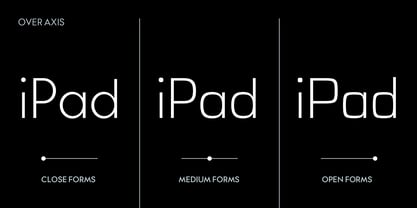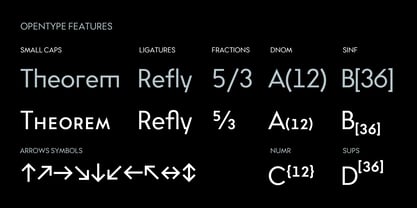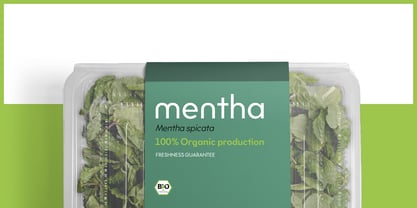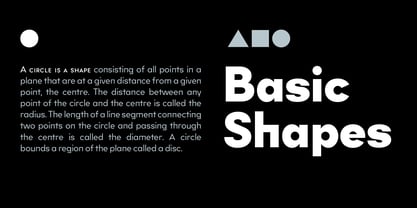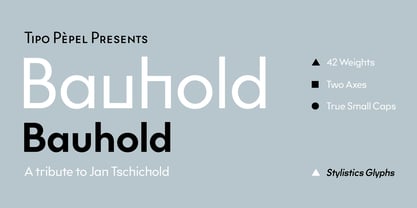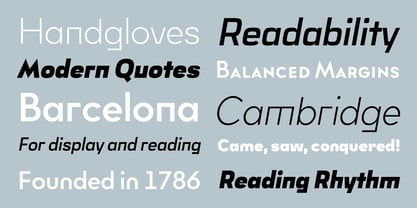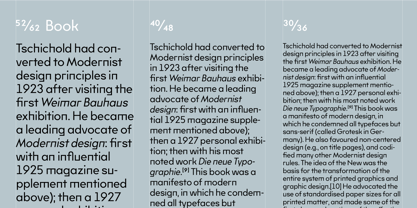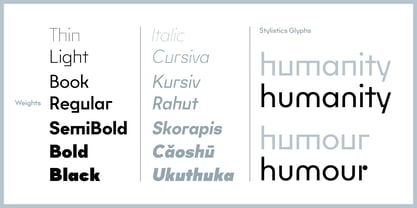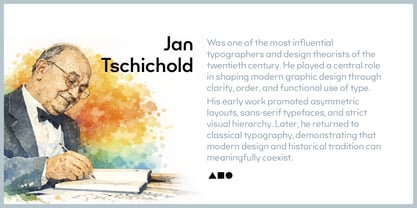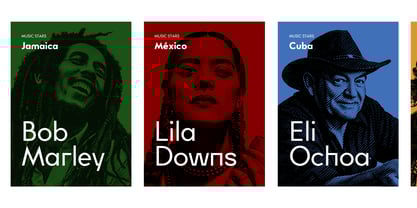
Bauhold
by Tipo Pèpel
The Bauhold Font Family was designed by Josep Patau Bellart and published by Tipo Pèpel. Bauhold contains 44 styles and family package options. More about this family
Bauhold is a contemporary sans-serif typeface that merges Bauhaus and Jan Tschichold, explicitly acknowledging the modernist legacy of experimentation, reduction, and functional clarity. It serves as a tribute to the early twentieth-century quest for a universal visual language, echoing Tschichold’s investigations into structure, proportion, and the concept of a universal alphabet adapted to modern life. The design of Bauhold is grounded in clear geometric principles. Circular forms, straight strokes, and disciplined proportions establish a rational framework that recalls Bauhaus typography and early modernist systems. Simultaneously, Bauhold avoids rigidity through carefully considered deviations. Characters such as n, m, h, u, and g subtly depart from strict geometric construction, introducing a human rhythm that softens the texture of text while preserving clarity and legibility. A defining feature of Bauhold is the OVER axis, inspired by the concept of overture and formal transformation. This axis progressively reshapes circular forms into near-rectangular structures, opening the counters of the letters and increasing internal space. As the axis is engaged, the typeface transitions from closed, compact forms to more open and angular ones, effectively generating two distinct stylistic expressions within the same family. This transformation not only alters the visual character of the typeface but also influences readability and tone. The closed forms offer a dense, controlled appearance suitable for text-heavy compositions, while the open forms create a more expressive, contemporary voice ideal for display and interface use. Across both extremes, Bauhold maintains a consistent typographic color and balance. Bauhold is equipped with an extensive set of OpenType features, including true small caps, ligatures, stylistic alternates, and multiple numeral systems. With its wide range of weights and variable axes, it adapts seamlessly to editorial design, branding, wayfinding, and digital environments. Rooted in modernist theory yet refined for contemporary practice, Bauhold bridges historical experimentation and functional typography with clarity, flexibility, and intent.
Designers: Josep Patau Bellart
Foundry: Tipo Pèpel